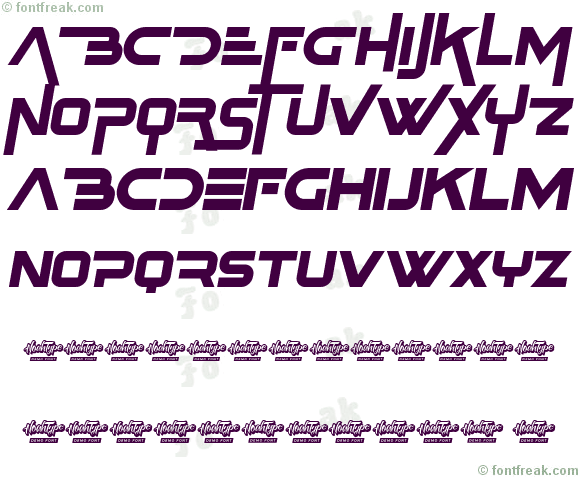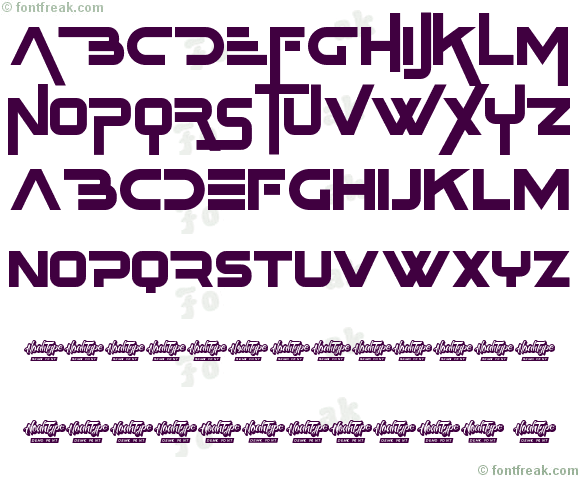
Yonder Breaks Demo
Yonder Breaks Demo Italic
About Yonder Breaks Demo
The Yonder Breaks Demo font by Noah Type is an eye-catching display typeface that effortlessly balances modern aesthetics with bold character. This unique font features a geometric sans-serif design, characterized by its distinctive stroke weight and striking contrast. The letters exhibit a clean, angular form with slight variations in thickness, adding a dynamic feel while maintaining legibility. The spacing between characters is generous, allowing for optimal readability, making it suitable for both digital and print applications.
Yonder Breaks Demo is perfect for a variety of use cases. Its bold and modern look makes it an ideal choice for eye-catching movie posters or promotional materials, where grabbing attention is crucial. Additionally, the font can elevate restaurant menus, offering a contemporary twist that appeals to a trendy dining audience. Small business owners can utilize this font in branding materials, such as business cards and flyers, to convey a forward-thinking image. Content creators will also find this font valuable for social media graphics and blog headers, where a unique visual identity is essential.
Targeted towards graphic designers, small business owners, and content creators, the Yonder Breaks Demo font provides a versatile option for anyone looking to infuse their projects with a modern, bold flair. The font's unique aesthetic and functionality cater to those who appreciate innovative design.
What truly sets the Yonder Breaks Demo font apart is its ability to convey personality while remaining versatile across various applications. Its bold, geometric shapes and modern style make it a standout choice for creative projects. With the Yonder Breaks Demo font free download available, you can easily incorporate this distinctive typeface into your next design endeavor.